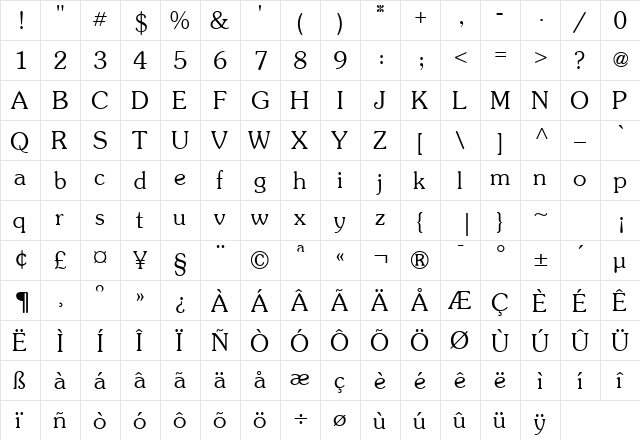
SueVermeer4 LightSH
Design Context for SueVermeer4 Typeface
SueVermeer4 takes a measured approach to typography — its balanced proportions and neutral character make it a reliable workhorse for both digital and print work. The delicate stroke weight brings airiness and refinement to layouts.